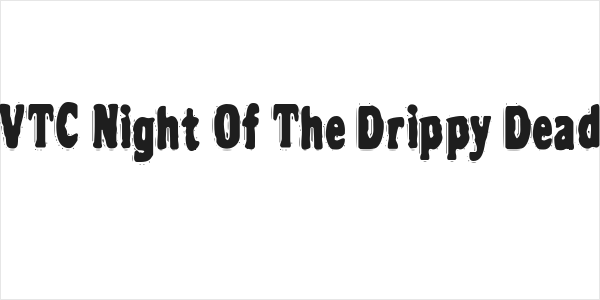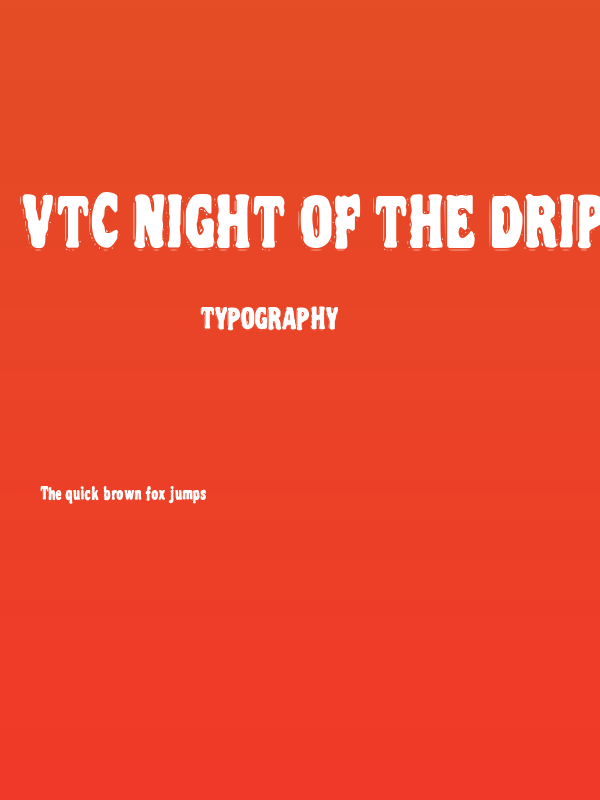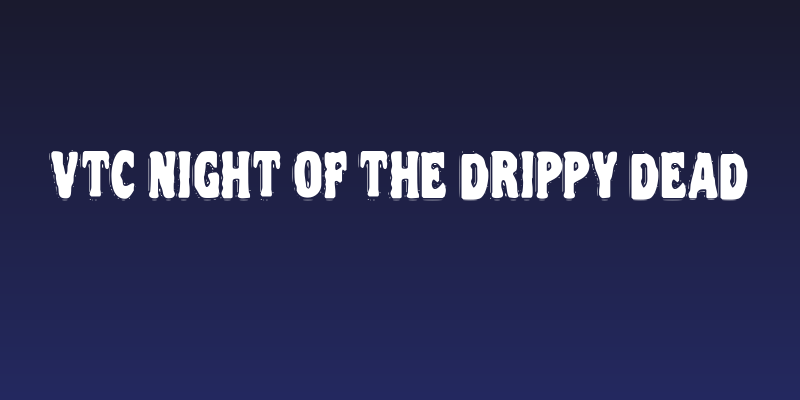
VTC Night Of The Drippy Dead Font
VTC Night Of The Drippy Dead Description
This font features a bold and playful design with a dripping effect that gives it a spooky, Halloween-inspired look. The characters are thick and rounded, with irregular edges that mimic the appearance of melting or dripping liquid. This unique style makes it stand out, perfect for creating eye-catching titles or themed graphics. The uppercase and lowercase letters maintain a consistent style, while the numbers and special characters complement the overall design with similar drippy characteristics. The font's boldness and distinctive style make it ideal for decorative purposes.
| Proposed Projects | Ideal for Halloween-themed posters, party invitations, horror movie titles, and creative graphic designs. |